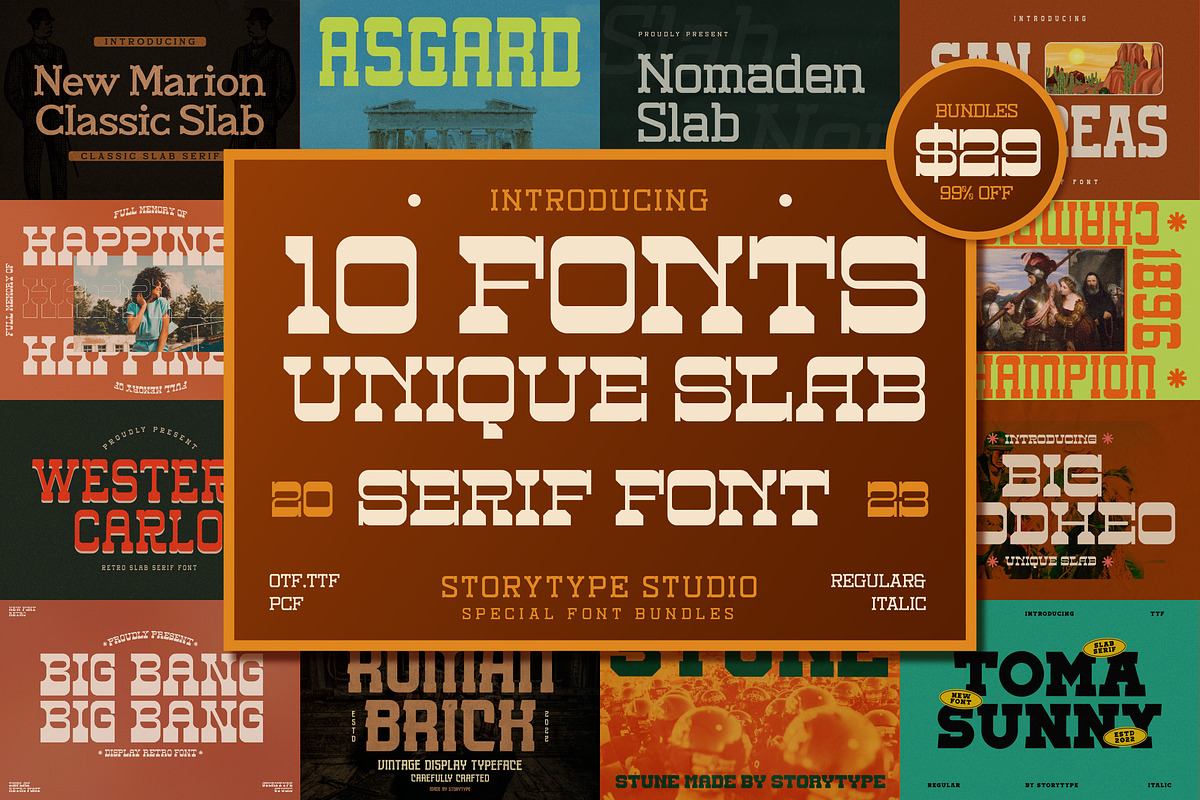
The Unique Slab Serif Font Bundle Free Download is a comprehensive collection of bold and distinctive slab serif fonts designed for a wide range of creative projects. Perfect for branding, logos, posters, advertising, and editorial design, this bundle offers a variety of slab serif styles that combine strong, geometric shapes with a touch of sophistication.
Each font in the bundle brings its own character, from clean, modern styles to vintage-inspired designs, ensuring you have the perfect fit for every project. With multiple weights and styles, this bundle offers flexibility and versatility for both print and digital applications.
The Unique Slab Serif Font Bundle includes uppercase and lowercase letters, numbers, punctuation, and multilingual support, making it ideal for diverse creative needs.